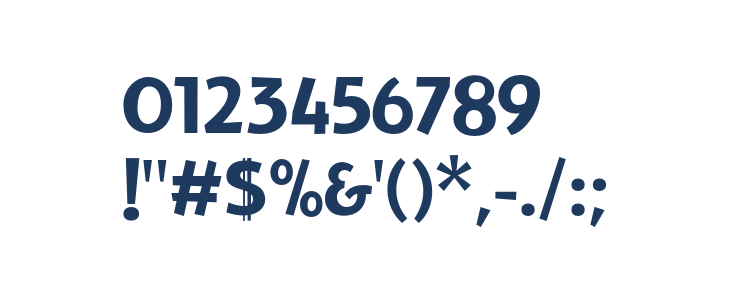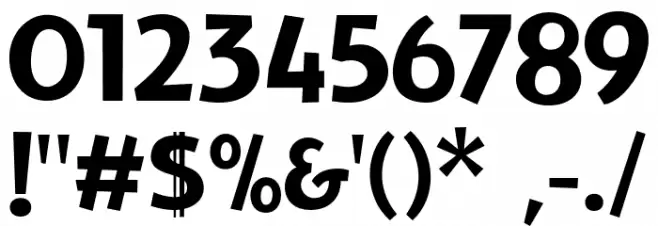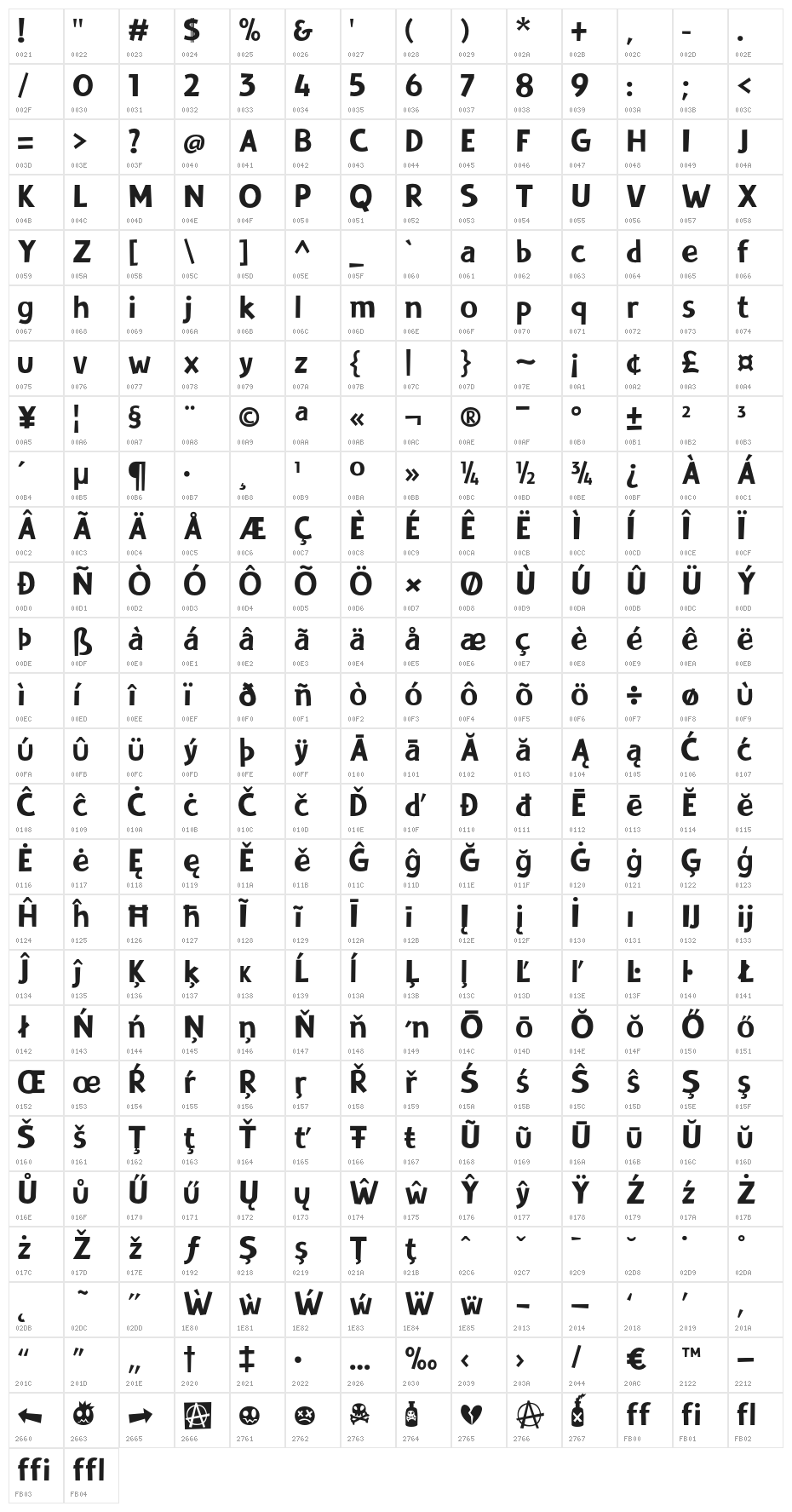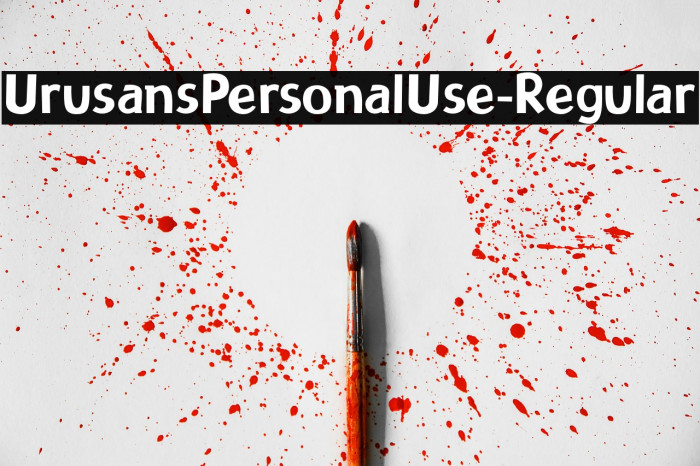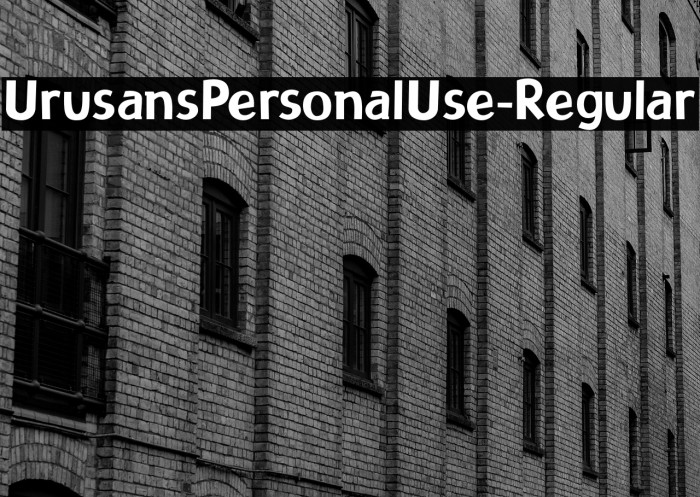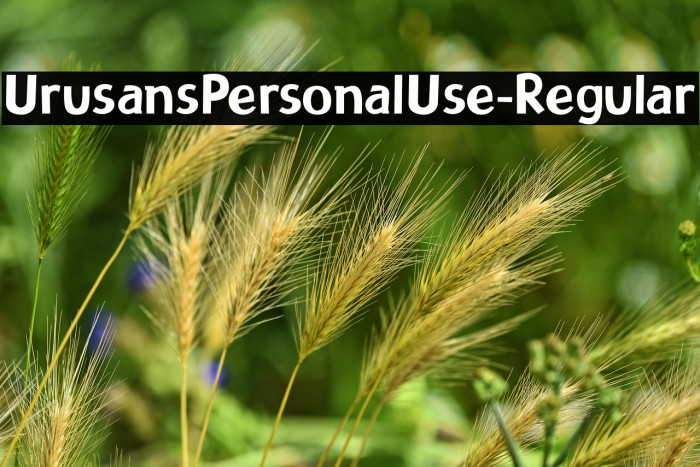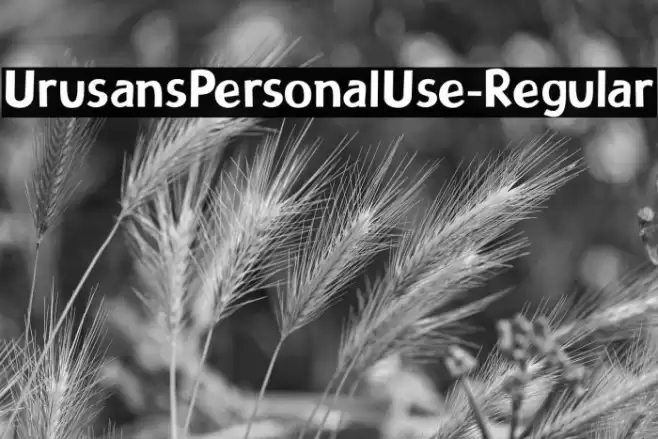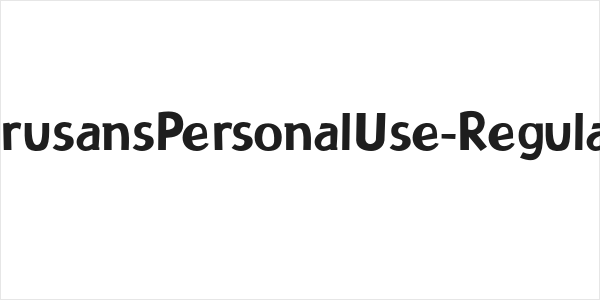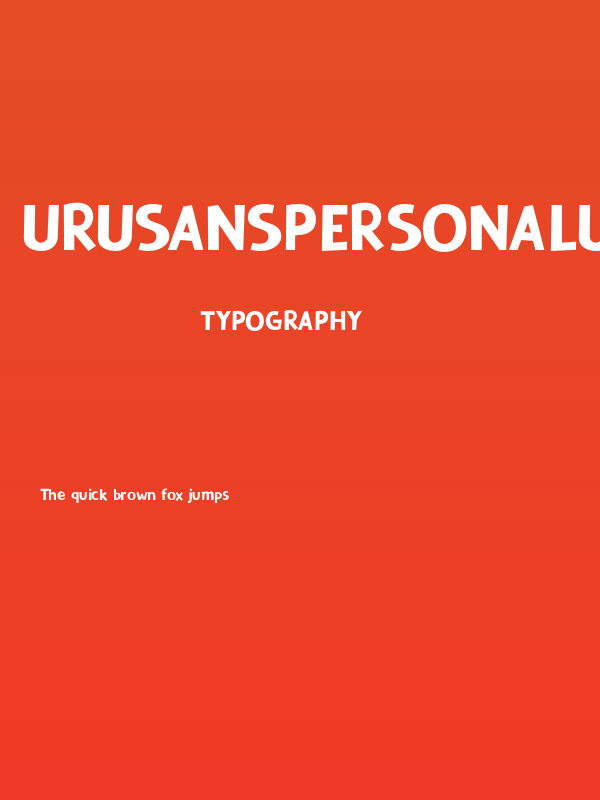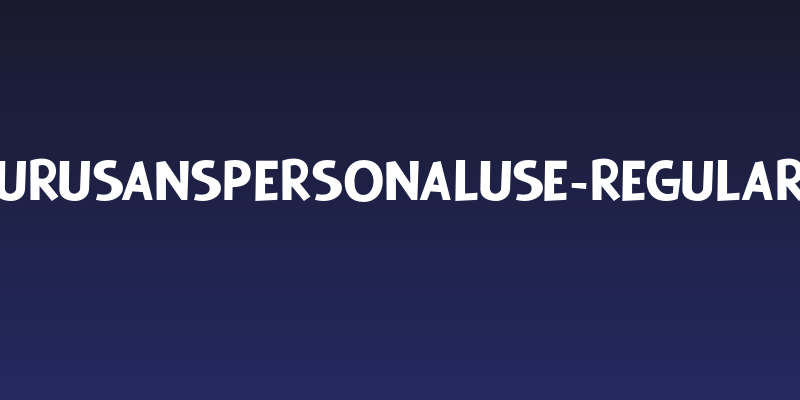
UrusansPersonalUse-Regular Font
UrusansPersonalUse-Regular Description
This font features a bold and playful design with a slightly irregular and hand-drawn appearance. The characters are thick and rounded, giving a friendly and approachable feel. The uppercase letters are robust and slightly condensed, while the lowercase letters maintain a consistent style with a bit more openness. The numerals are bold and clear, ensuring readability. Special characters are well-integrated, maintaining the overall playful aesthetic. This font is suitable for projects that require a touch of fun and creativity.
| Overall Style | Playful, Creative |
| Proposed Projects | Ideal for children's books, playful branding, posters, and creative projects. |